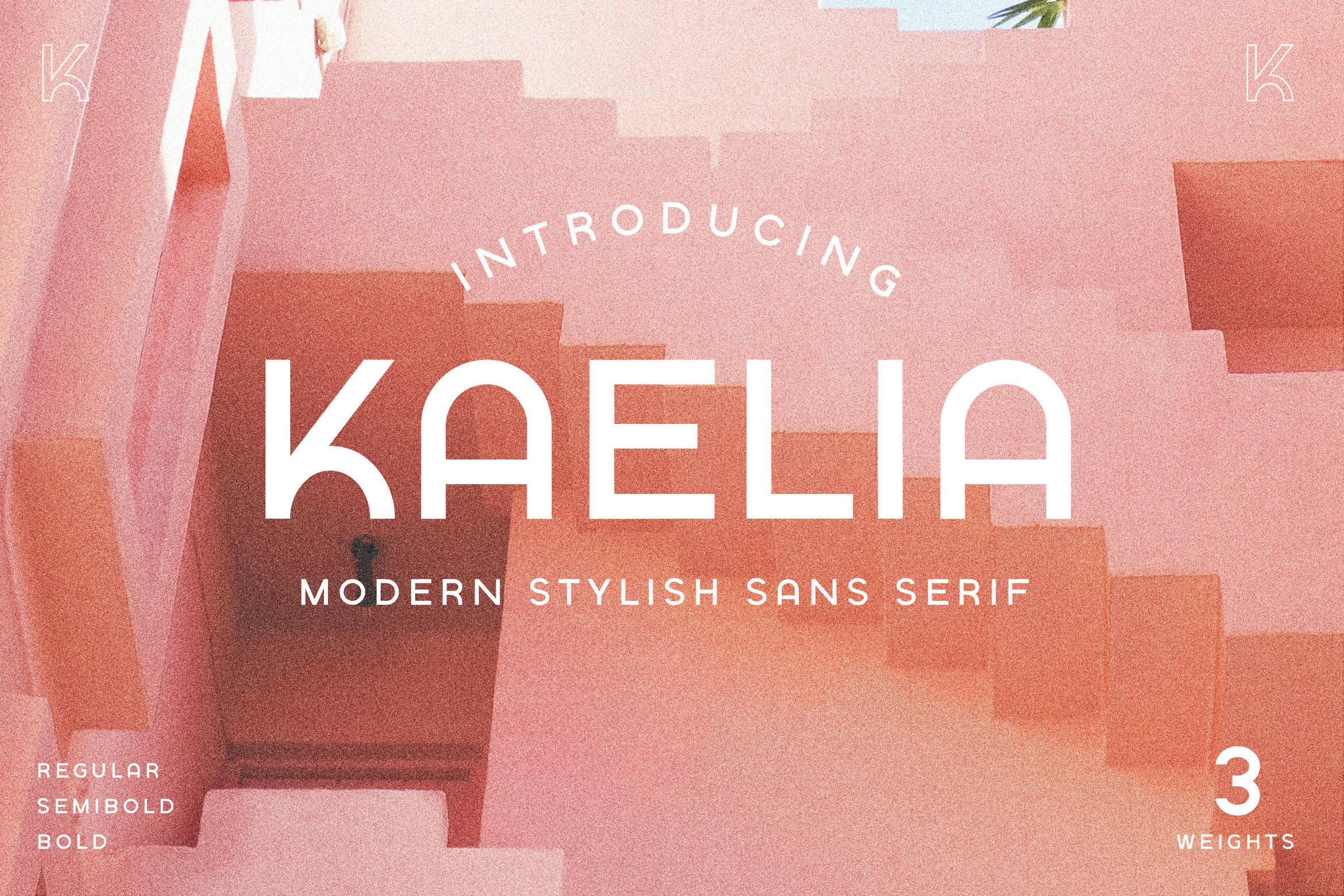
KAELIA - Simple Stylish Typeface
Introducing Kaelia Sans serif, a Bold Minimalist Elegant Modern vintage font with beautiful ligatures, tons of special alternative glyphs, ornament and multilingual support. It's a very versatile font that works great in large and small sizes. Perfect for branding projects, Logo design, Clothing Branding, product packaging, magazine headers, or simply as a stylish text overlay to any background image.